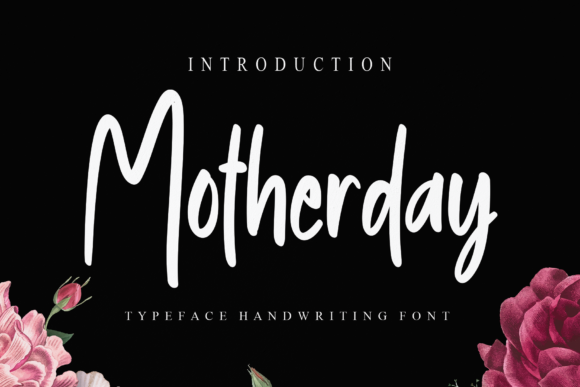
Introducing Motherday Font, a captivating script font family that exudes elegance and charm. Designed by the renowned Misterletter.co, Motherday is a tall and modern handwritten font that will transform your designs into exquisite masterpieces. Step into a world of endless creativity and let Motherday's graceful strokes enchant your audience.
With Motherday Font, you can effortlessly create wedding invitations that radiate timeless sophistication. Its delicate curves and flowing lines will add a touch of romance and personalization to your special day. Design envelopes that capture the essence of your love story, etching your names in a font that symbolizes the enduring bond you share.
But Motherday's versatility extends far beyond wedding stationery. It's a font that lends itself to a myriad of creative projects. Whether you're crafting logos, branding materials, or social media graphics, Motherday will elevate your designs with its innate beauty and charm. Its tall, slender characters add a touch of modernity to any project, while its handwritten style infuses a sense of warmth and authenticity.
Imagine the impact of Motherday Font on your branding materials. Its unique and eye-catching style will set your business apart from the competition. Create letterheads, brochures, and business cards that exude professionalism and creativity. Motherday Font will elevate your brand's image and leave a lasting impression on your clients.
But it's not just about aesthetics. Motherday Font is also incredibly user-friendly. Its clean lines and legible characters ensure that your messages are communicated with clarity and impact. Whether you're designing for print or digital media, Motherday will ensure that your words resonate with your audience.